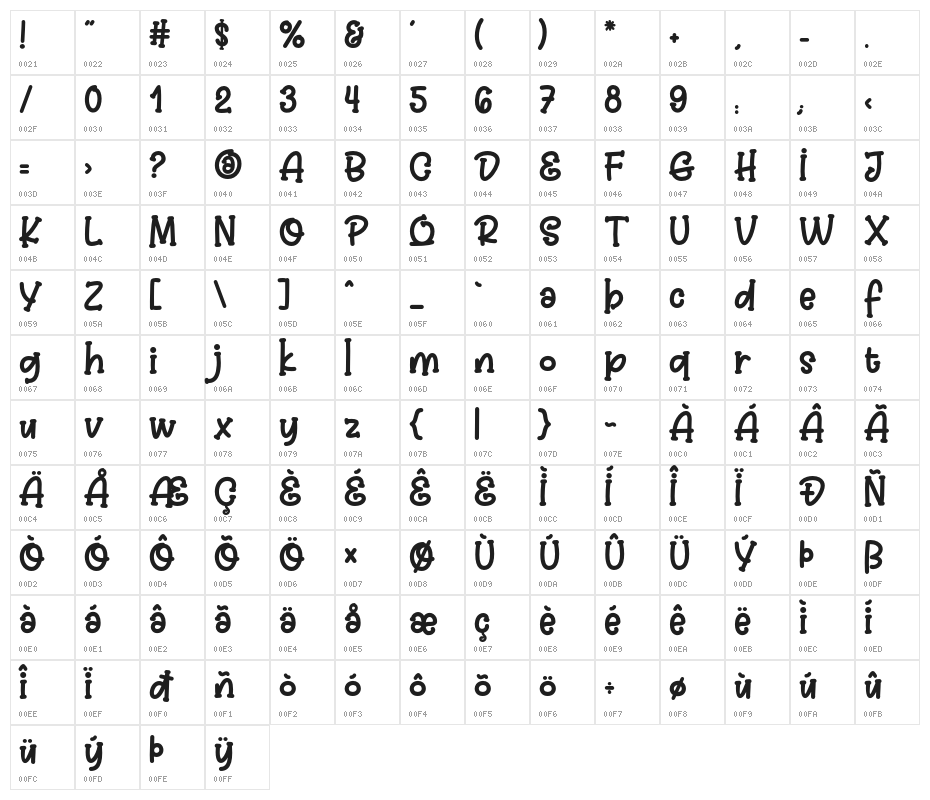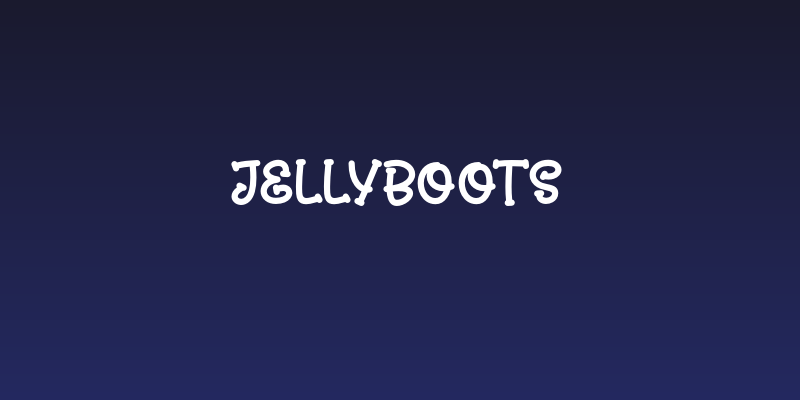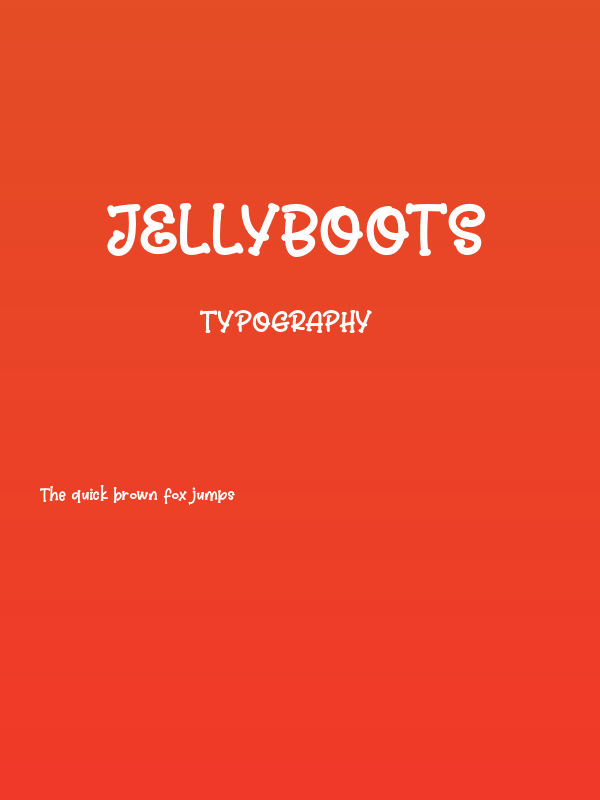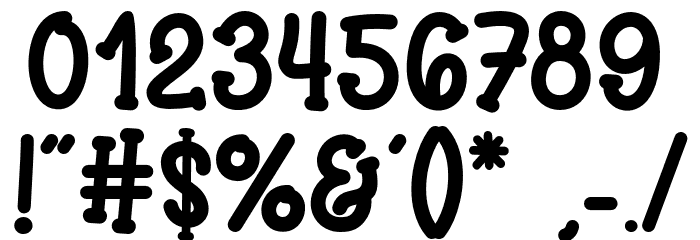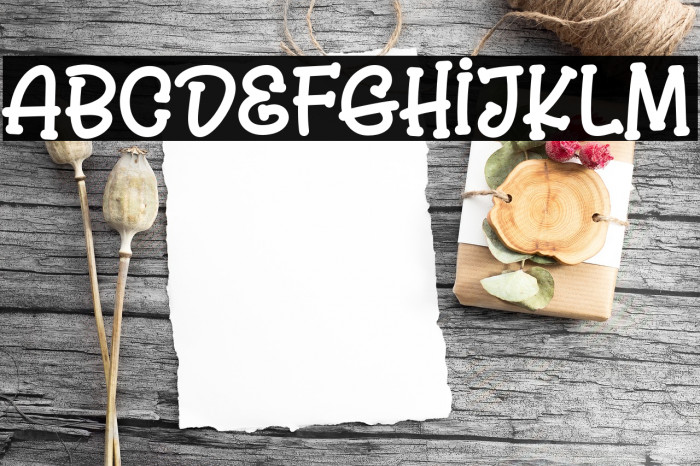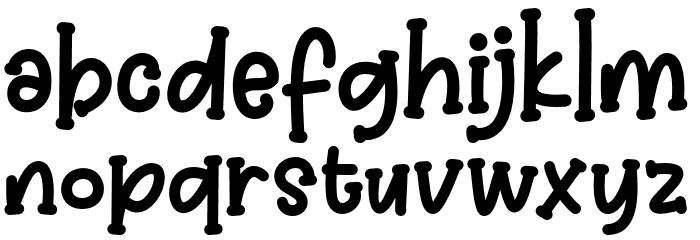
JellyBoots Font
JellyBoots Description
This playful and whimsical font features bold, rounded characters with a hand-drawn appearance. The letters have a consistent thickness, giving them a uniform look, while the rounded edges add a friendly and approachable feel. The uppercase and lowercase letters maintain a cohesive style, with slight variations in the curves and loops that enhance its casual charm. The numerals and special characters follow the same design principles, ensuring a harmonious overall appearance. This font's unique style makes it suitable for projects that require a touch of fun and creativity.
| Use Case | Logos, Headlines, Posters |
| Proposed Projects | Ideal for children's books, playful branding, greeting cards, and creative posters. |